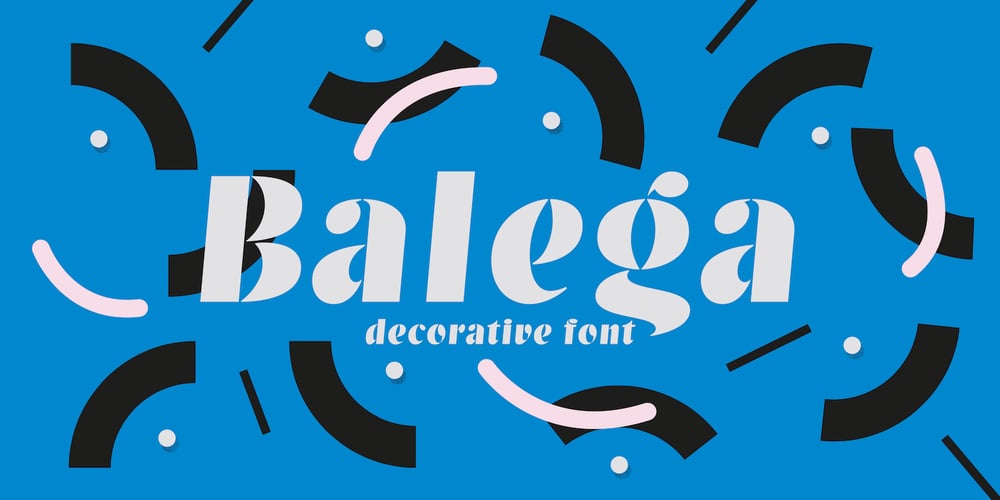
Balega Font Family was designed by Jürgen Weltin and published by Linotype. Balega contains 1 styles and family package options. Balega is stencil-like display font, created by German designer Jürgen Weltin in 2002. Balega’s letters are very bold, and have a slight italic slant. While some of the uppercase forms appear somewhat sharp, the lowercase is definitively round and friendly. Text set in Balega has a very forward moving motion, as the slant makes all of the letters seem to be lunging toward the right. This gives the typeface a very dynamic feel. Because the counterforms in and between the letters are very narrow, we recommend using Balega in posters and other larger displays, where its design may be truly appreciated. Balega is part of the Take Type 5 collection, from Linotype GmbH.”